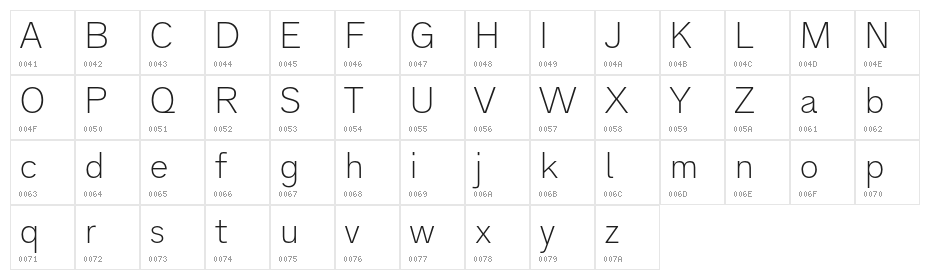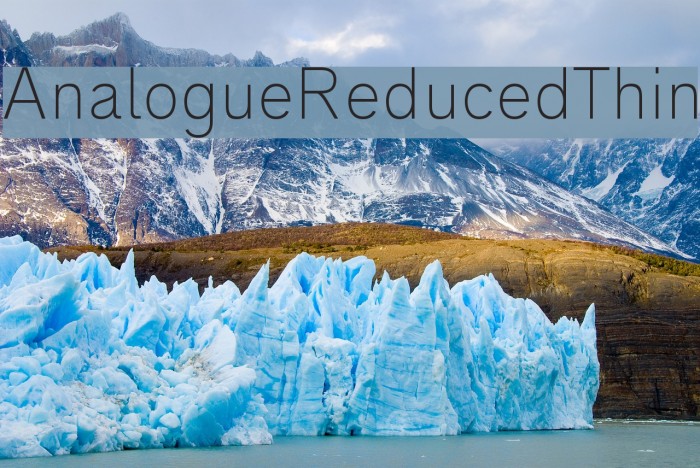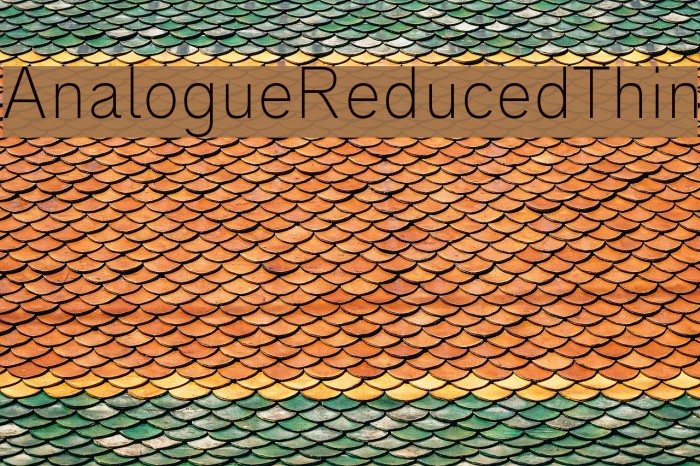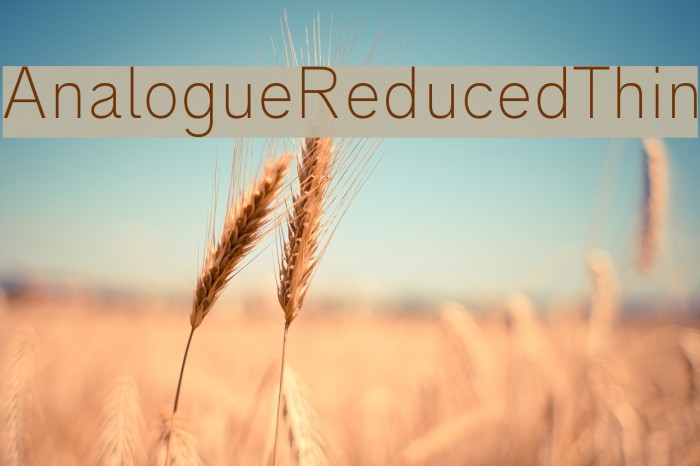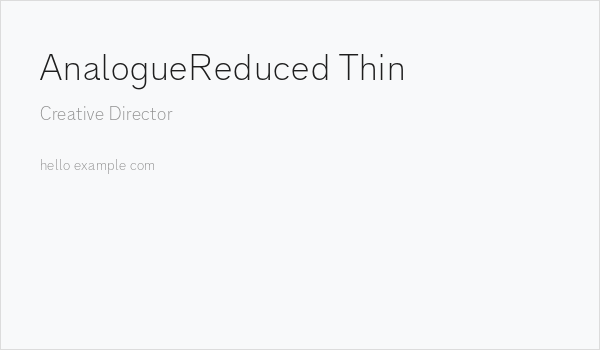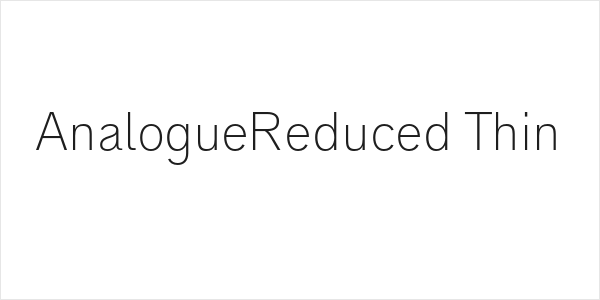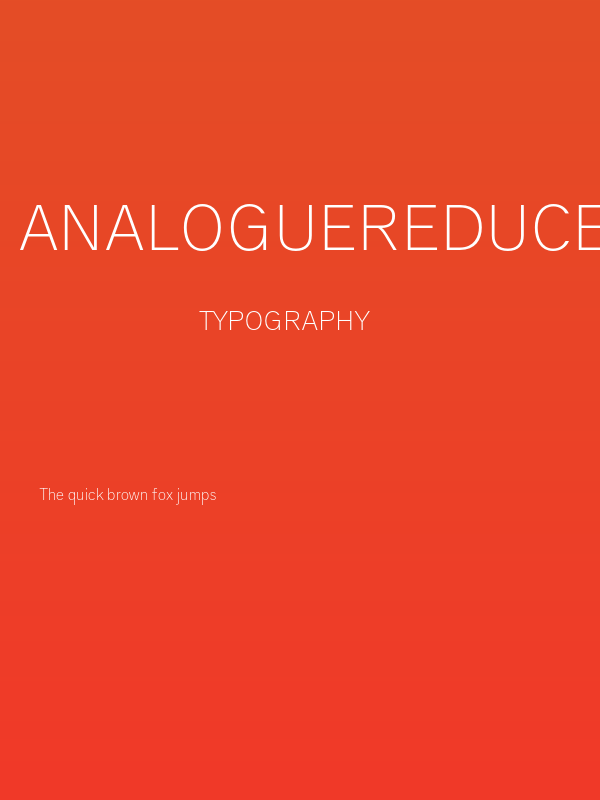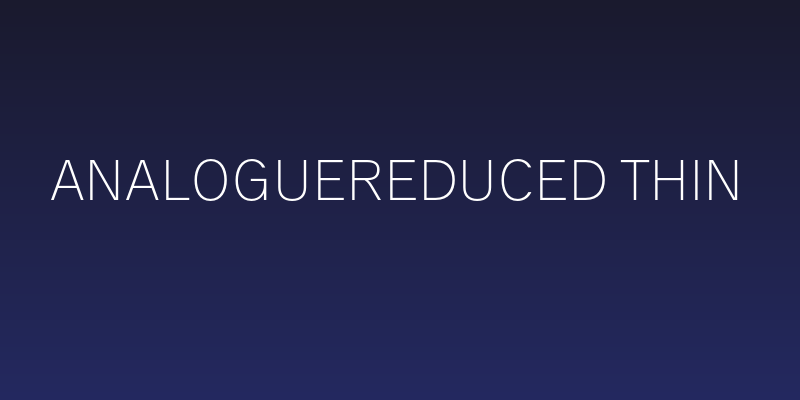
AnalogueReduced-Thin Font
AnalogueReduced-Thin Description
This font features a clean and minimalist design with thin, uniform strokes that create a sense of elegance and modernity. The characters are well-proportioned, with a consistent height and width that contribute to its readability. The uppercase letters are slightly taller than the lowercase, maintaining a balanced appearance. The numerals are clear and distinct, matching the overall style of the alphabet. Special characters are designed with the same thin strokes, ensuring cohesion throughout the set. This font's simplicity and clarity make it versatile for various design applications.